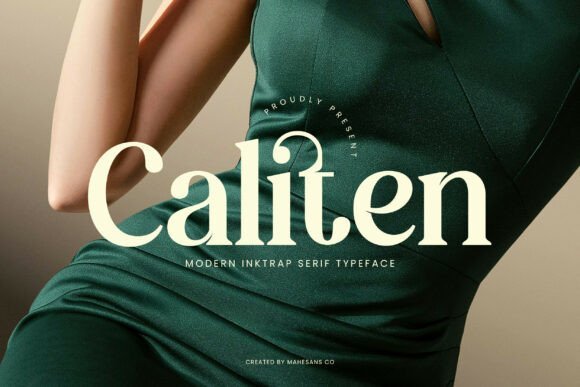
Introduction to Caliten Font
Caliten is a modern inktrap serif that blends sharp precision with smooth, elegant curvesβ€”creating a typeface that feels refined, confident, and undeniably high-end.
Every character carries a stylish balance of structure and flair, making it perfect for brands that want to look premium without trying too hard Designed for luxury branding, fashion campaigns, editorial layouts, beauty packaging, and striking logo work, Caliten delivers a polished visual presence with a contemporary edge.
Key Features of Caliten Font